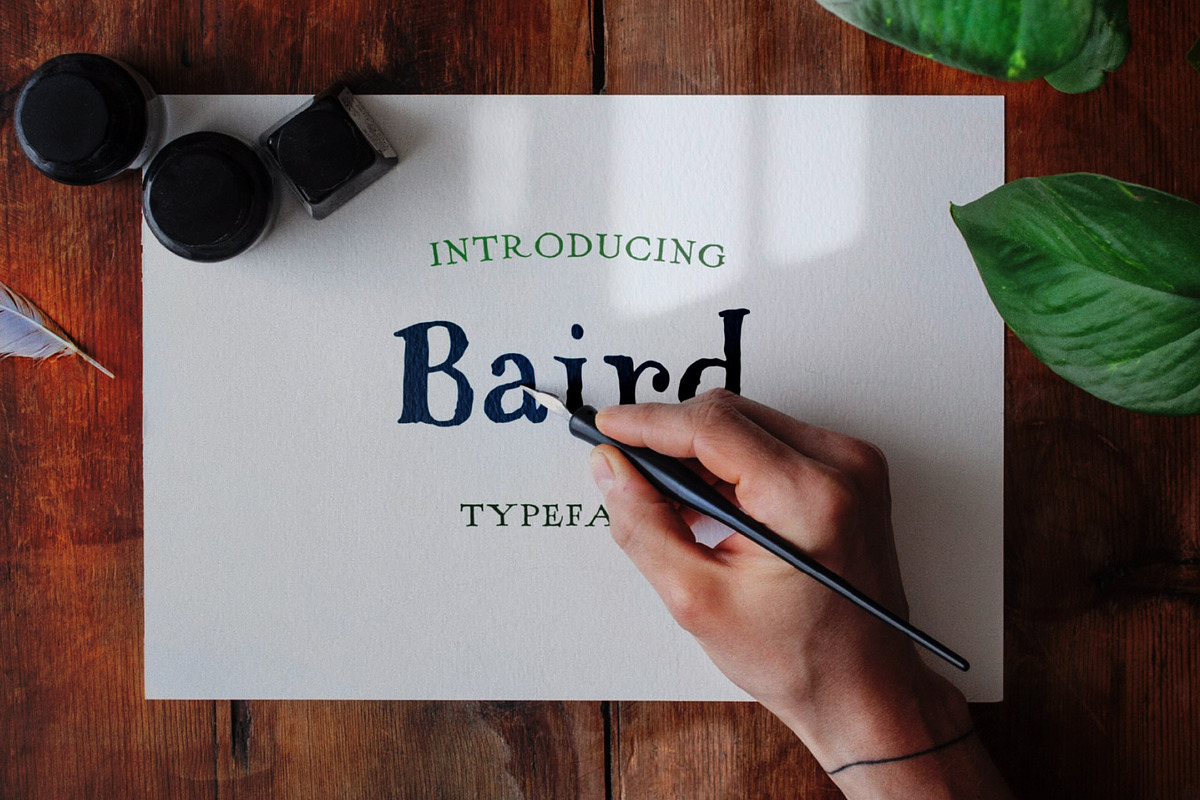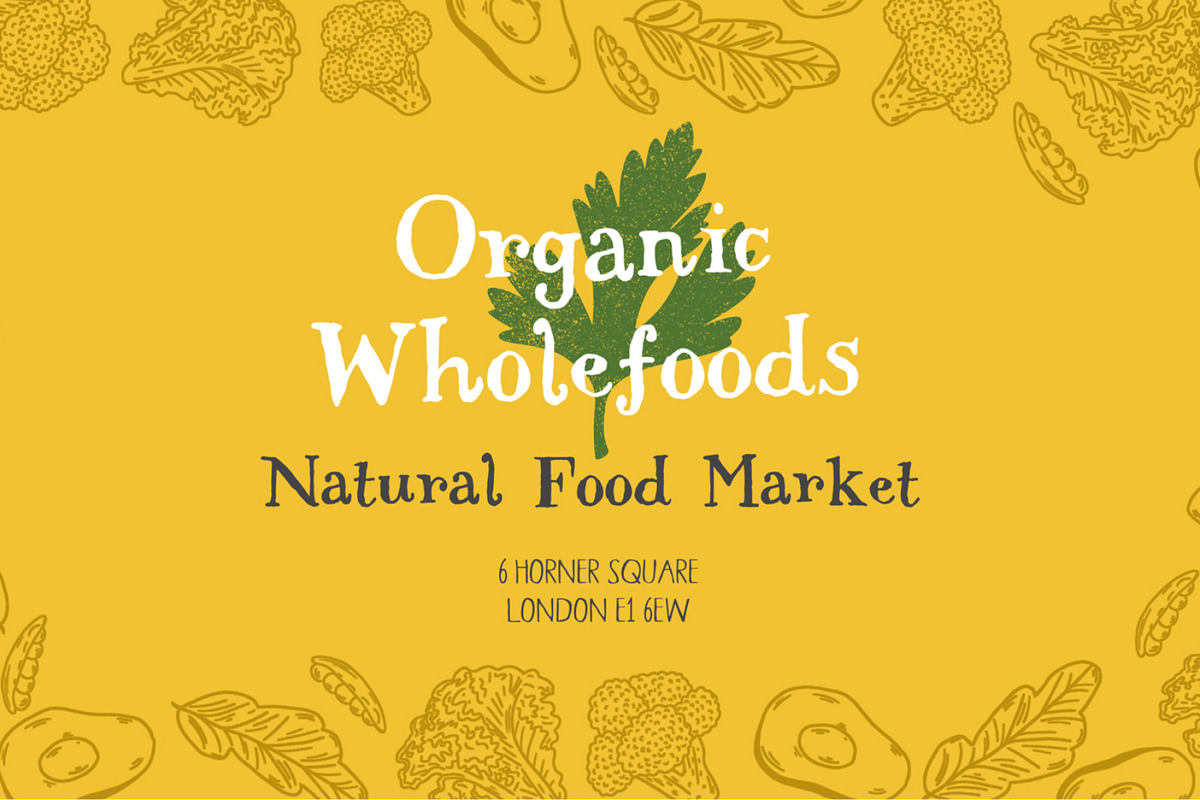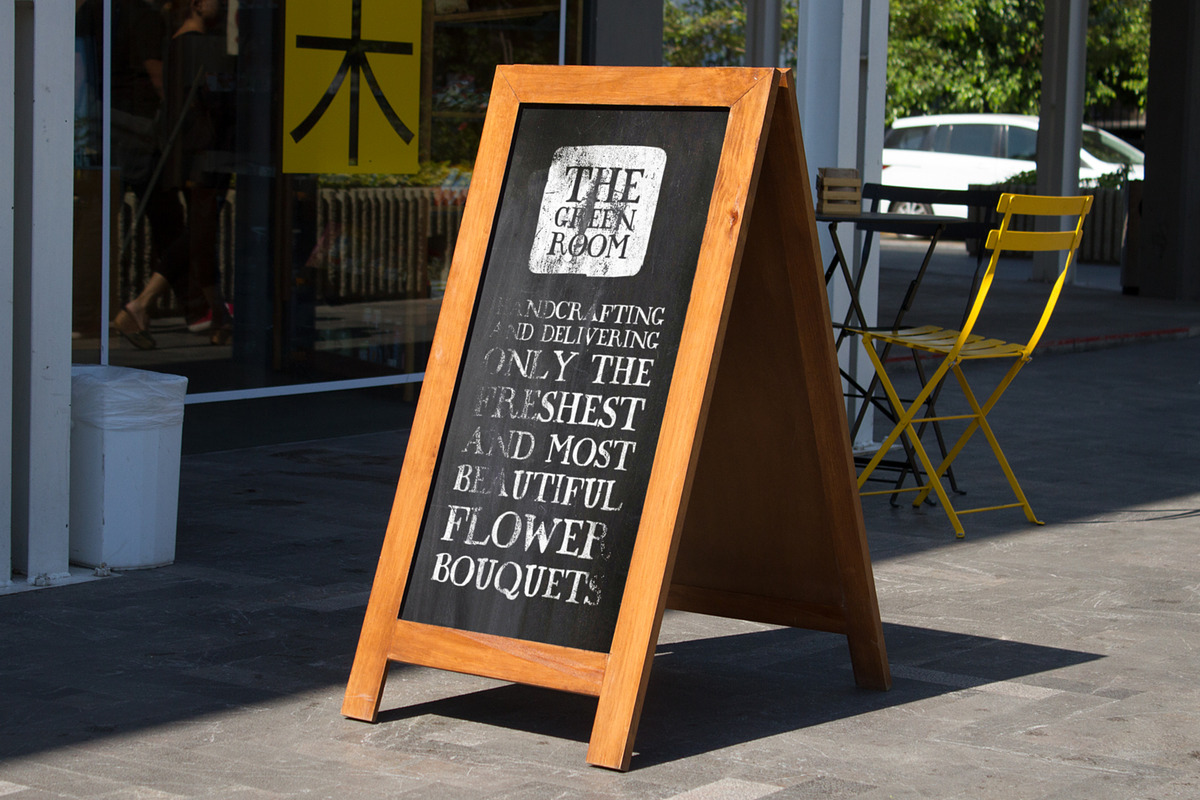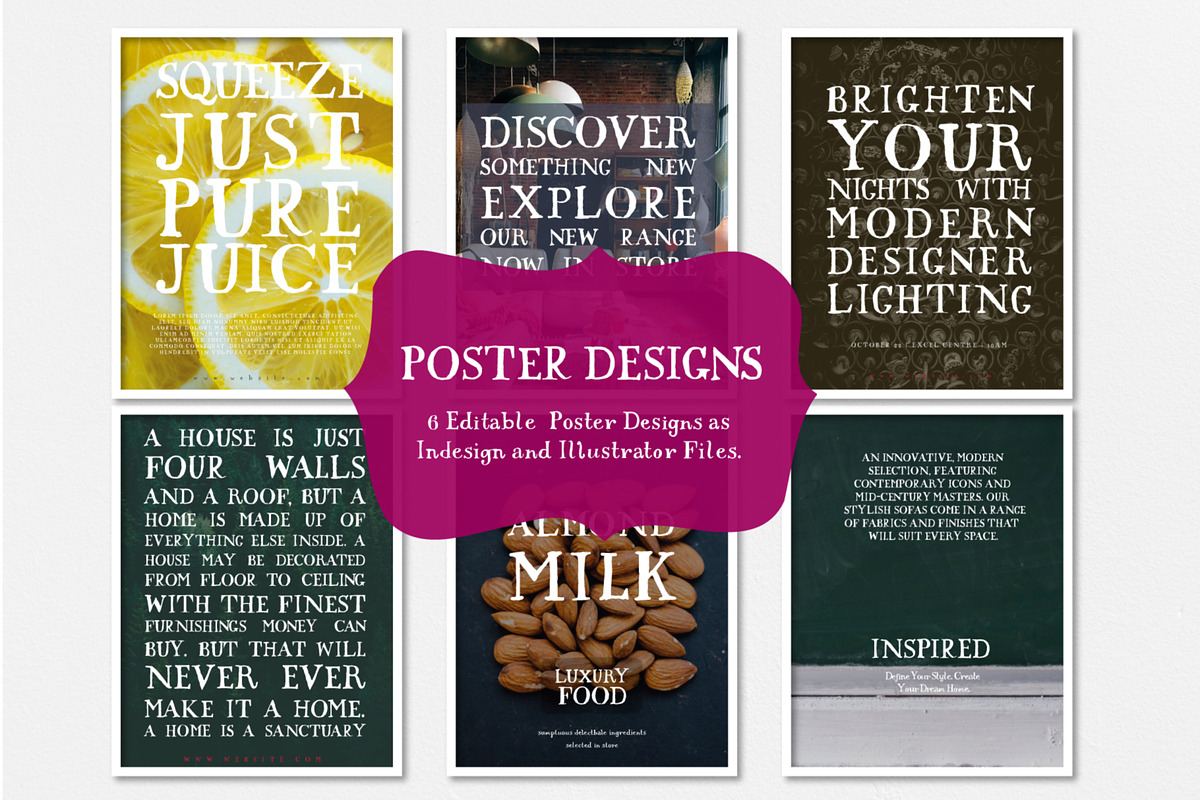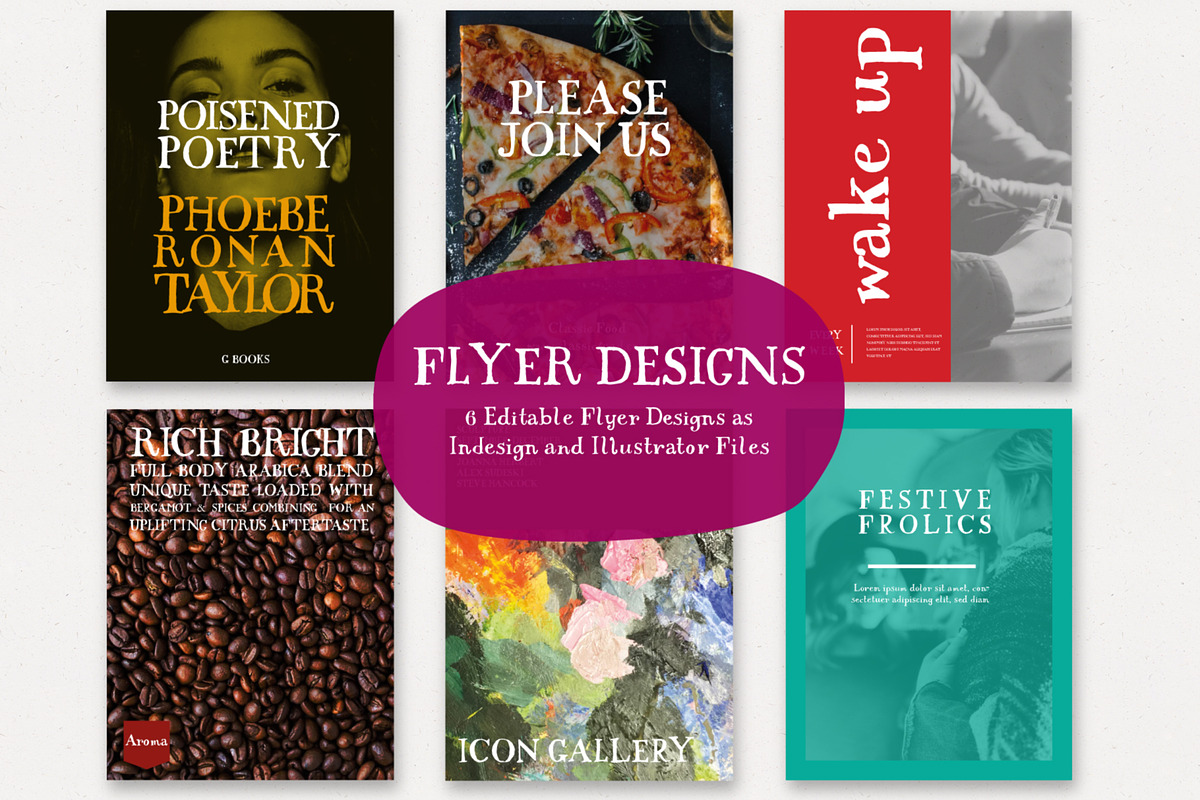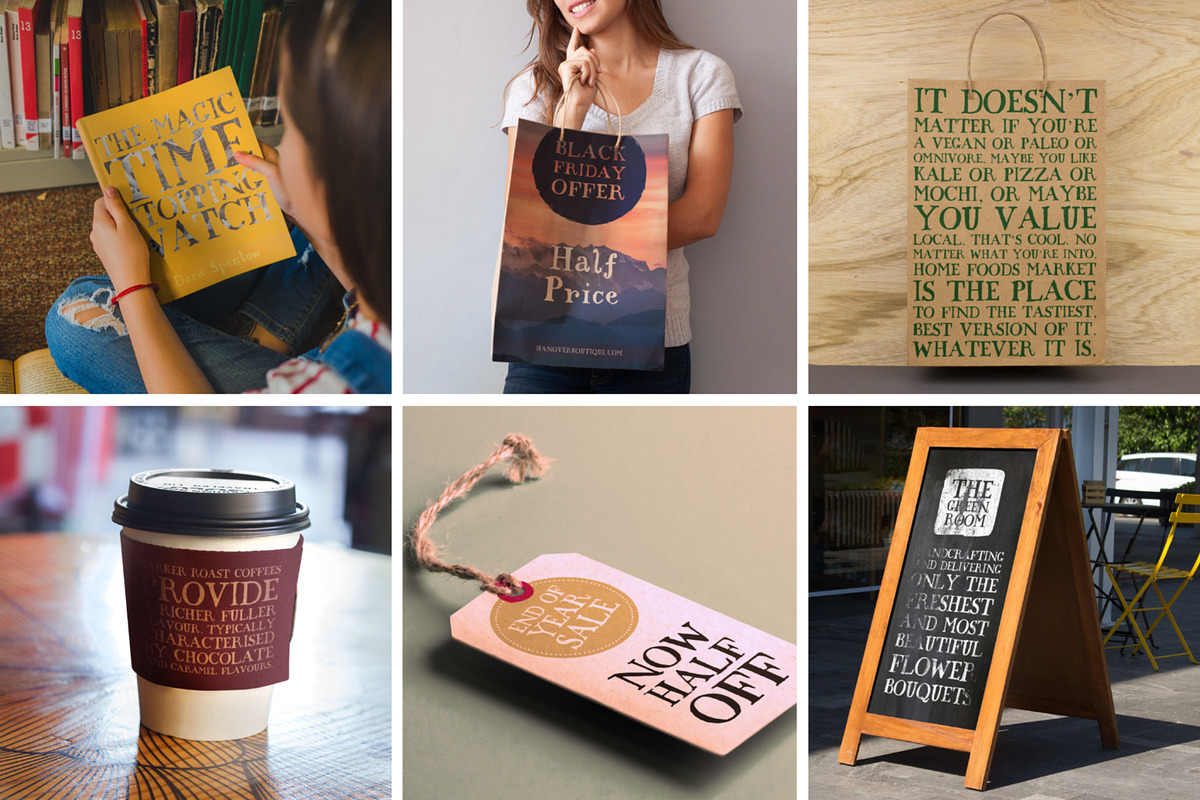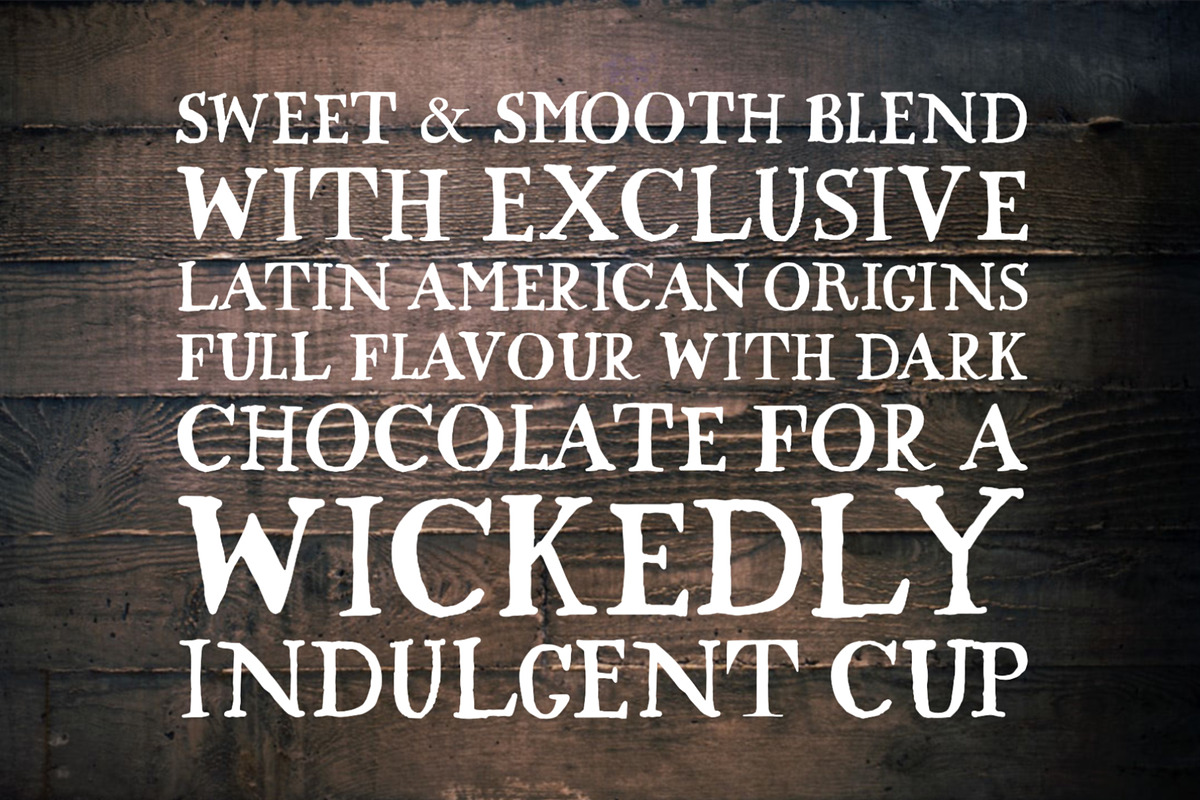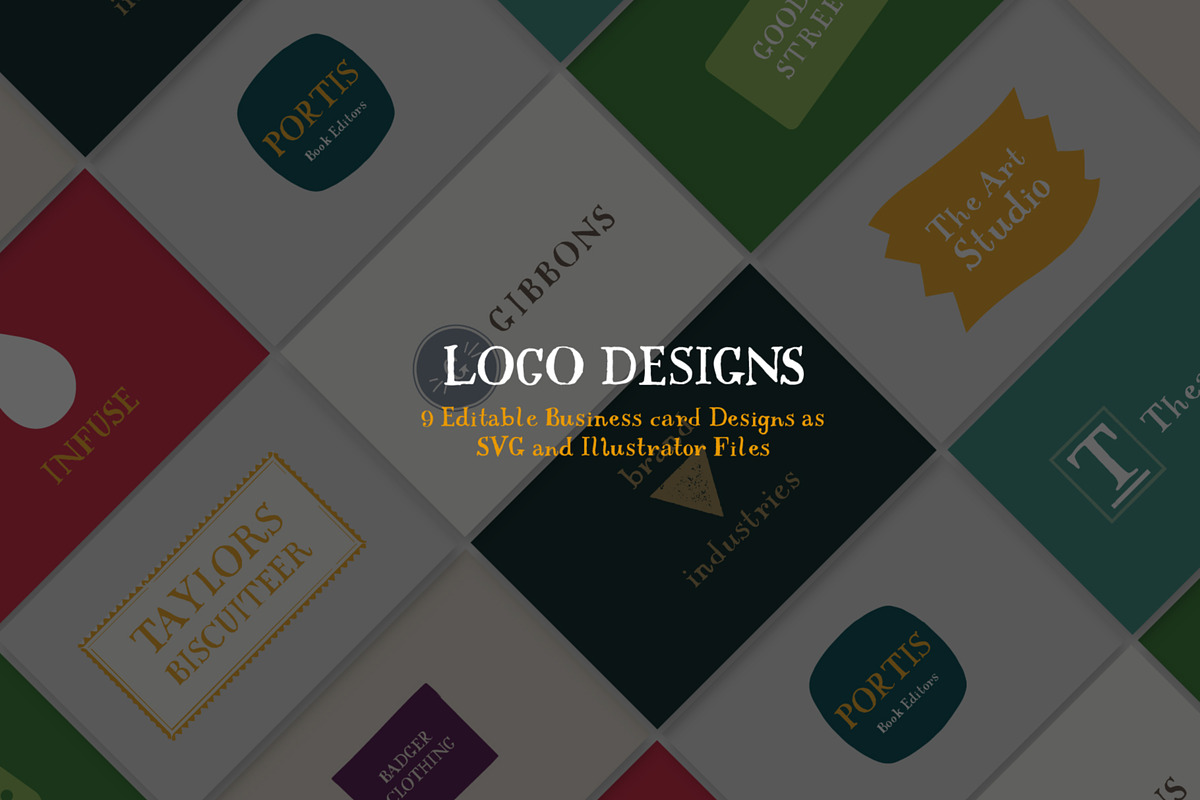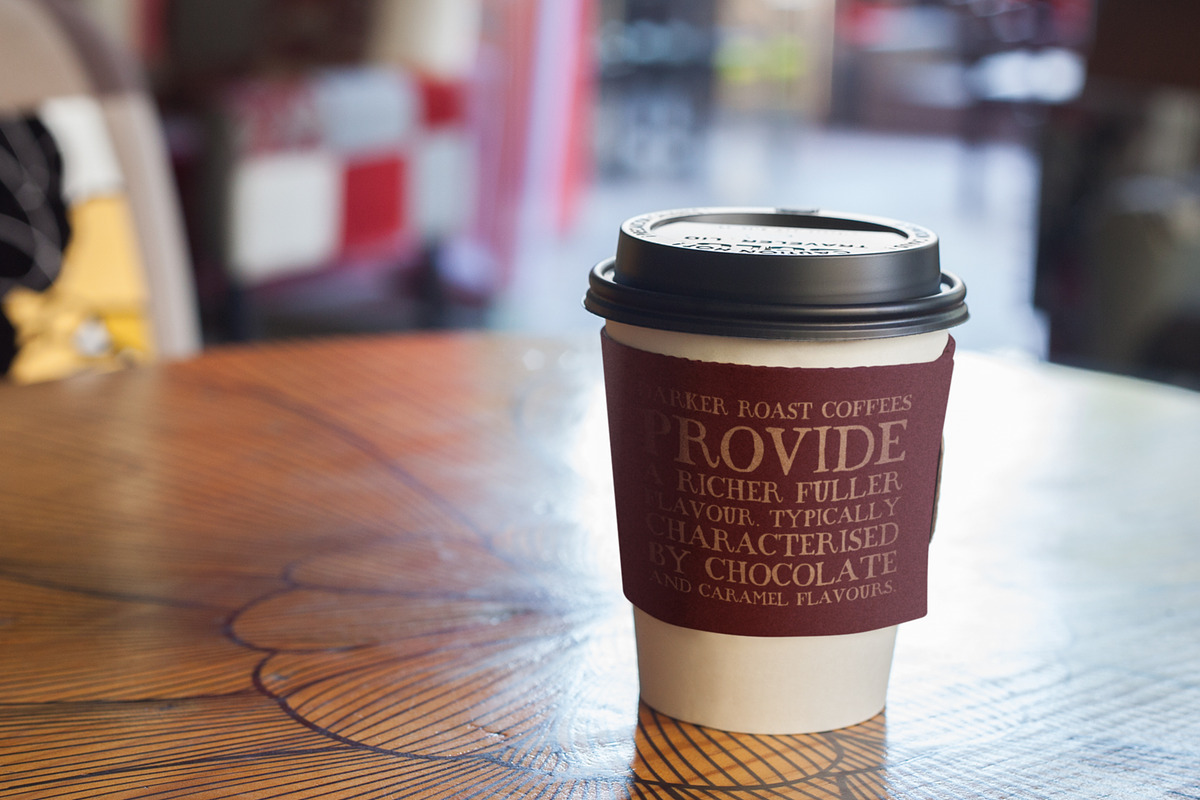
Baird - Hand Serif Font
Baird Hand Serif Font is a charming, hand-drawn serif typeface that blends a classic serif structure with a unique, personal touch. Perfect for projects that need an organic yet refined feel, Baird works beautifully for branding, packaging, invitations, and editorial design.
Its subtle, handcrafted details make it stand out from standard serif fonts, giving your designs a warm and authentic look. Whether you're creating elegant invitations or playful logos, Baird provides the perfect balance of sophistication and creativity.
- Uppercase and lowercase letters
- Hand-drawn serif style
Baird’s blend of classic serif structure with handcrafted details gives it a versatile and timeless appeal, making it ideal for both traditional and modern designs.